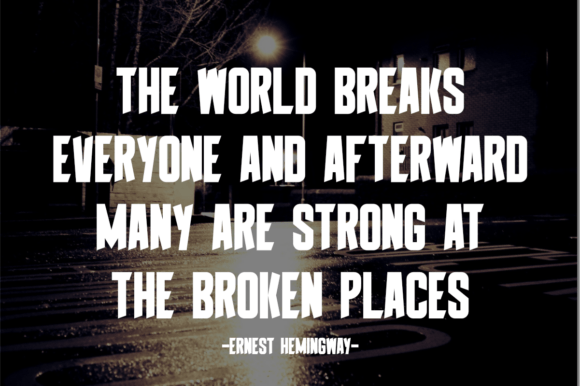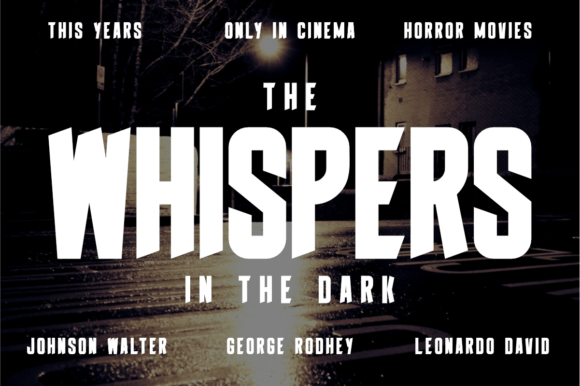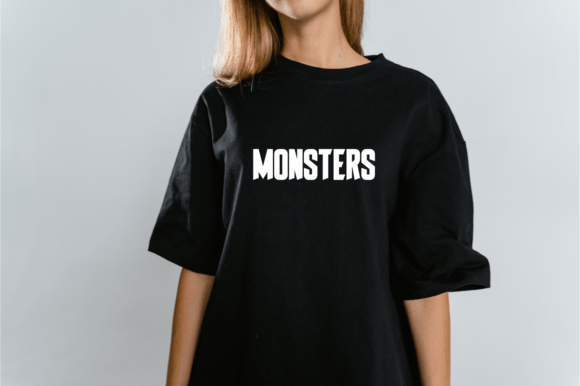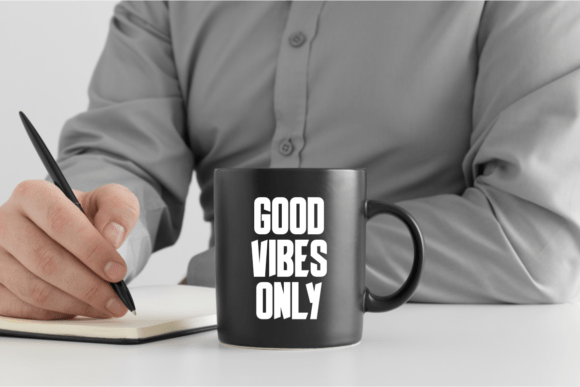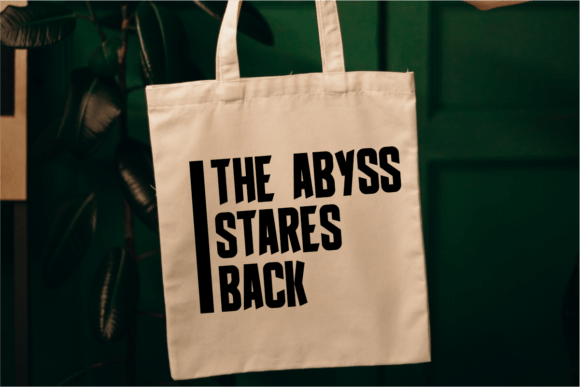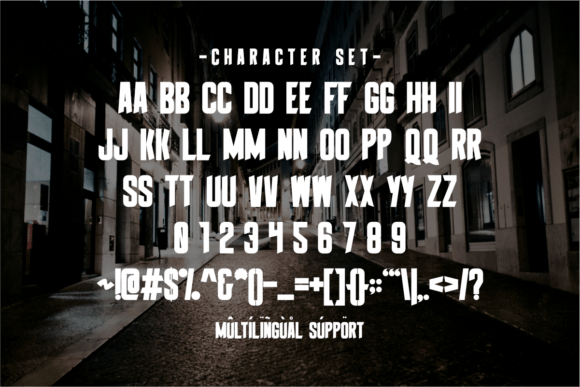
Unleash the Power of Darkhold Font: A Condensed and Quirky Display Font
In the world of typography, fonts play a crucial role in conveying the tone and personality of a brand or project. When it comes to making a bold statement, a quirky and attention-grabbing font is essential. This is where Darkhold Font comes in – a condensed and quirky display font that commands attention with its unique and slightly sinister style.
What is Darkhold Font?
Darkhold Font is a distinctive display font designed to make a lasting impression. Its condensed structure and quirky aesthetic make it perfect for projects that require a bold and memorable look. Whether you’re working on a poster, headline, or branding project, Darkhold Font is the ideal choice for those who want to stand out from the crowd.
Key Features of Darkhold Font
- Condensed Structure: Darkhold Font features a condensed structure that allows for easy use in a variety of applications, from posters to headlines and branding.
- Quirky Aesthetic: The font’s quirky and unusual style adds a touch of personality to any project, making it perfect for designers and crafters who want to add a bit of whimsy to their work.
- Unique and Memorable: Darkhold Font’s distinctive style ensures that your project will be remembered long after it’s seen.
- Versatile: The font is suitable for a wide range of projects, from bold and edgy to playful and creative.
Why Choose Darkhold Font?
With so many fonts available, why choose Darkhold Font? Here are just a few reasons why designers and crafters love this quirky display font:
- Adds a Touch of Personality: Darkhold Font’s quirky style adds a touch of personality to any project, making it perfect for designers and crafters who want to stand out.
- Easy to Use: The font is easy to use and can be applied to a wide range of projects, from print to digital.
- High-Quality Design: Darkhold Font is designed with high-quality craftsmanship in mind, ensuring a professional finish every time.
How to Use Darkhold Font
Darkhold Font is versatile and can be used in a variety of applications. Here are some ideas to get you started:
- Posters: Use Darkhold Font to create eye-catching posters that grab attention.
- Headlines: Add a touch of personality to your headlines with Darkhold Font’s quirky style.
- Branding: Use Darkhold Font to create bold and memorable branding that stands out from the crowd.
- Digital Projects: Apply Darkhold Font to digital projects, such as social media graphics and website headers.
Tips and Tricks for Using Darkhold Font
Here are some tips and tricks for getting the most out of Darkhold Font:
- Experiment with Colors: Darkhold Font looks great in bold and bright colors – experiment to find the perfect hue for your project.
- Play with Size: The font’s condensed structure makes it perfect for use in a variety of sizes – from large headlines to smaller text.
- Mix and Match: Combine Darkhold Font with other fonts to create a unique and memorable look.
Darkhold Font is a quirky and attention-grabbing display font that’s perfect for designers and crafters who want to add a touch of personality to their projects. With its condensed structure, quirky aesthetic, and unique style, Darkhold Font is ideal for posters, headlines, branding, and digital projects. Whether you’re looking to make a bold statement or add a bit of whimsy to your work, Darkhold Font is the perfect choice.